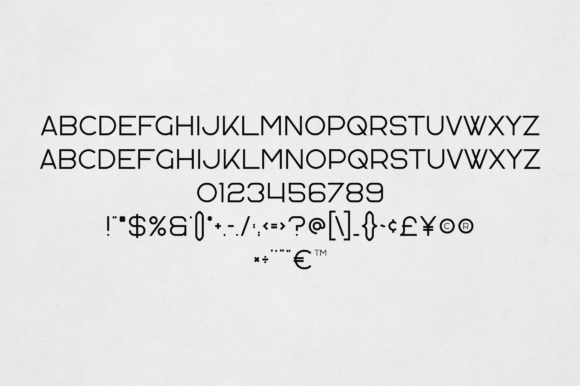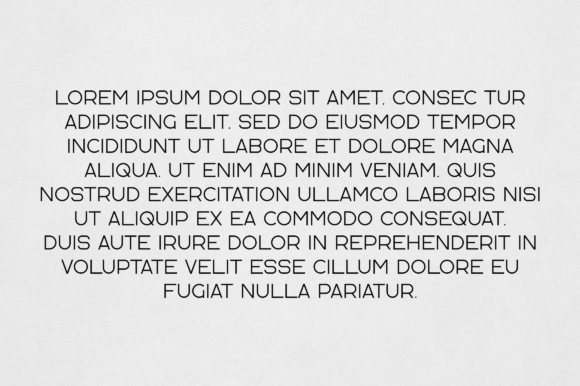
Eden Font: Elevate Your Typography with Elegance and Versatility
Are you tired of using the same old fonts for your design projects? Look no further than Eden Font, a sophisticated and adaptable typeface that will take your typography to the next level. With its elegant curves and unique character, Eden Font is perfect for designers and crafters seeking to add a touch of luxury to their work.
What Makes Eden Font So Special?
Eden Font is an elegant and versatile font that will make your typography truly unique. Its sophisticated design makes it perfect for a wide range of applications, from logos and branding to headlines and plain text. Whether you’re working on a branding project, home-ware design, product packaging, or magazine header, Eden Font is sure to enchant your audience.
Key Features of Eden Font
- Elegant and Versatile: Eden Font boasts an elegant design that is both sophisticated and versatile. Its unique character makes it perfect for a wide range of design projects.
- Perfect for Branding: With its luxurious feel, Eden Font is ideal for branding projects. It will help you create a lasting impression on your audience and establish a strong brand identity.
- Multi-Purpose: Eden Font can be used for a variety of design projects, including home-ware designs, product packaging, magazine headers, and more.
- Stylish Text Overlay: Eden Font also makes a great stylish text overlay for any background image. Its elegant design will add a touch of sophistication to your work.
Why Choose Eden Font?
There are many reasons why Eden Font stands out from the crowd. Here are just a few:
- Unique Character: Eden Font has a unique character that will set your design apart from the rest.
- High-Quality Design: Eden Font is designed with high-quality craftsmanship in mind. Its elegant curves and sophisticated design make it perfect for professional designers and crafters.
- Easy to Read: Despite its elegant design, Eden Font is easy to read, making it perfect for body text and headlines.
- Flexible: Eden Font is a flexible font that can be used in a variety of design projects, from print to digital.
Tips and Tricks for Using Eden Font
Here are a few tips and tricks to help you get the most out of Eden Font:
- Pair with Other Fonts: Eden Font pairs well with other fonts, so don’t be afraid to experiment with different font combinations.
- Use for Headlines and Body Text: Eden Font is perfect for both headlines and body text, making it a versatile addition to your font library.
- Experiment with Colors: Eden Font looks great in a variety of colors, so don’t be afraid to experiment with different color schemes.
Eden Font is a sophisticated and versatile typeface that will elevate your typography to the next level. With its elegant curves and unique character, it’s perfect for designers and crafters seeking to add a touch of luxury to their work. Whether you’re working on a branding project, home-ware design, or product packaging, Eden Font is sure to enchant your audience. So why wait? Download Eden Font today and start creating stunning typography that will leave a lasting impression on your audience.